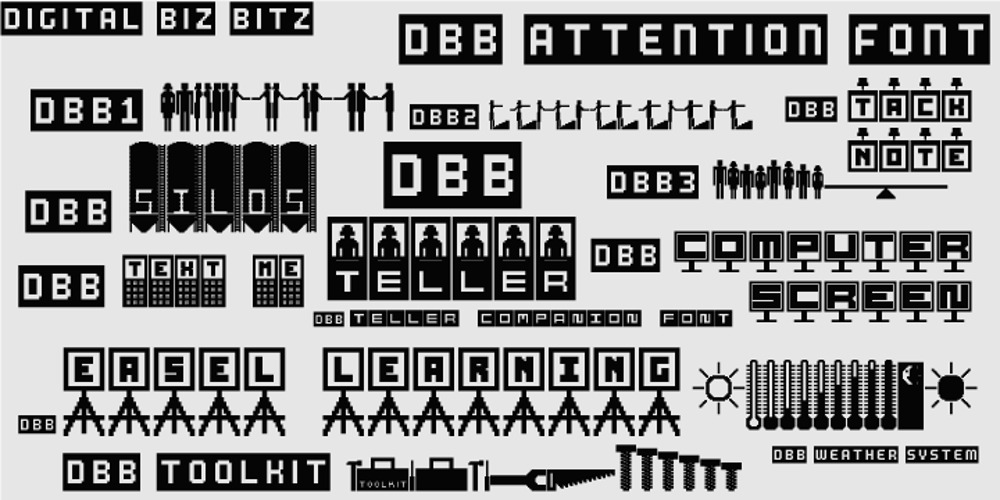
Digital Biz Bitz Font Family was designed by Wilson Thomas and published by Funk King. Digital Biz Bitz contains 13 styles and family package options. Digital Biz Bitz is a family of fonts and fontbats designed for use in business learning. Use these elements to enhance the learning experience you create.